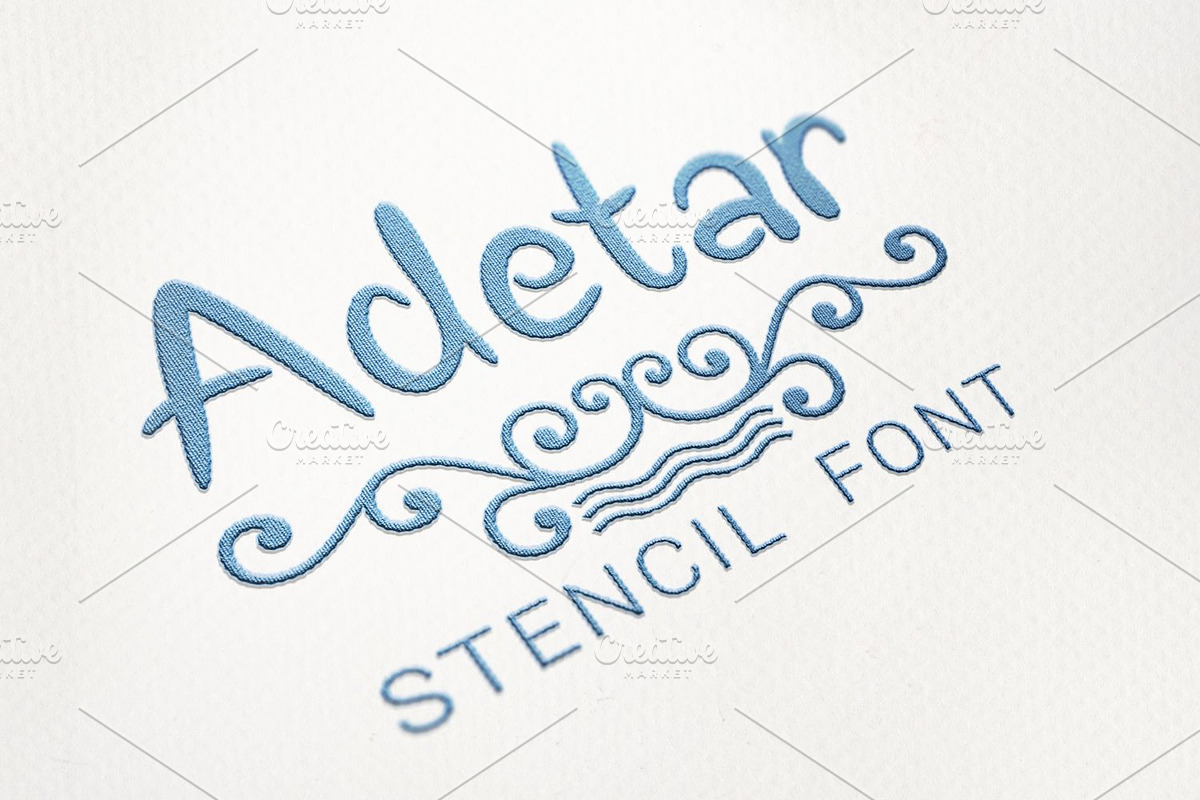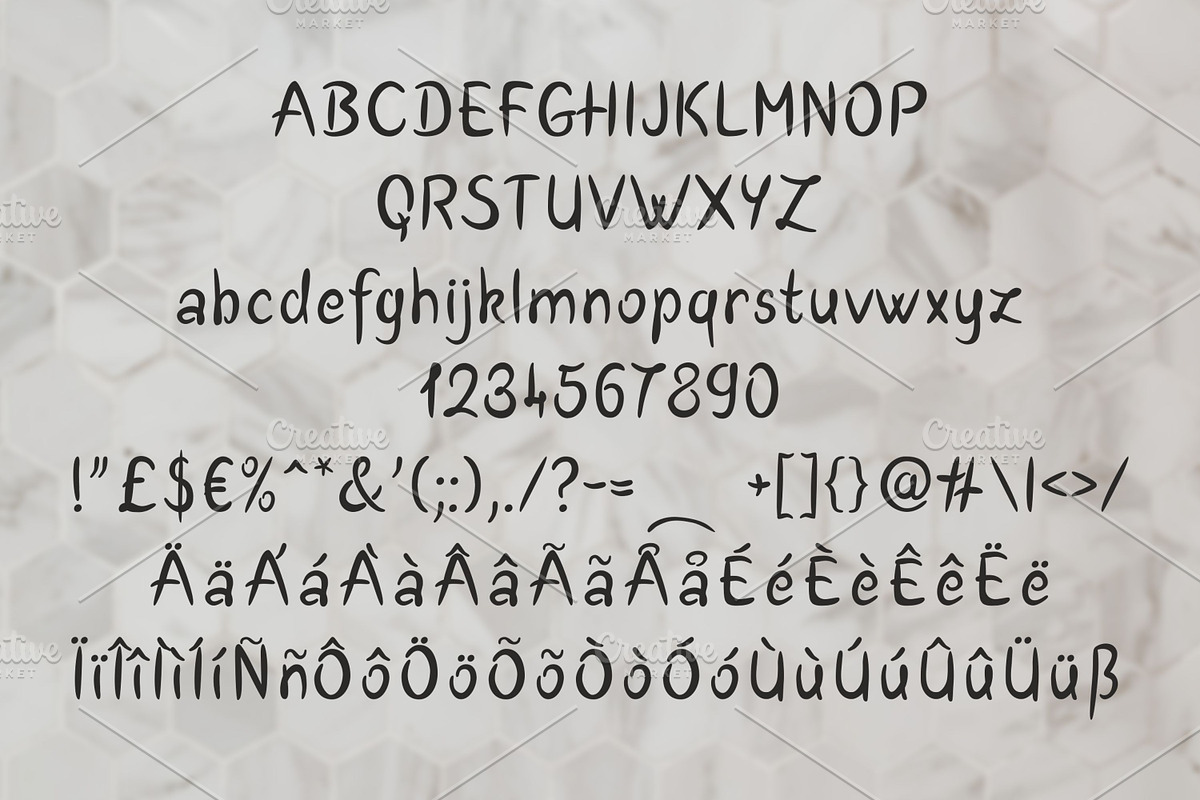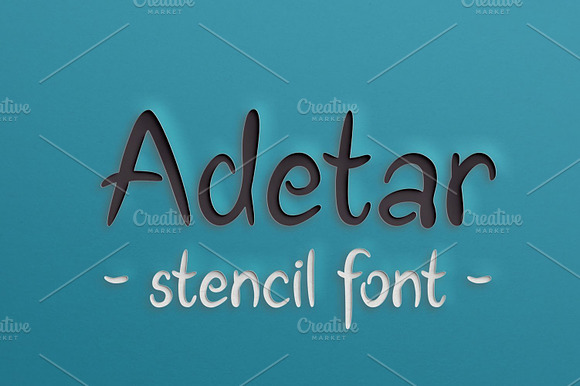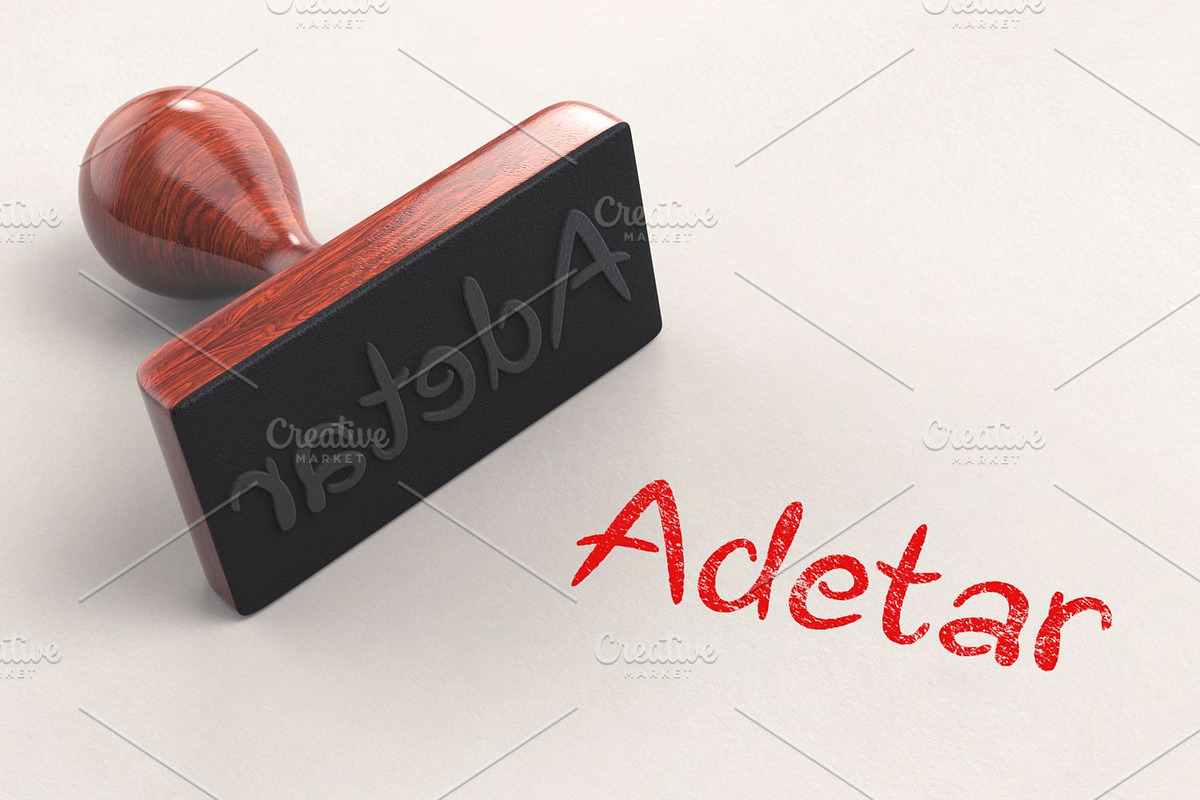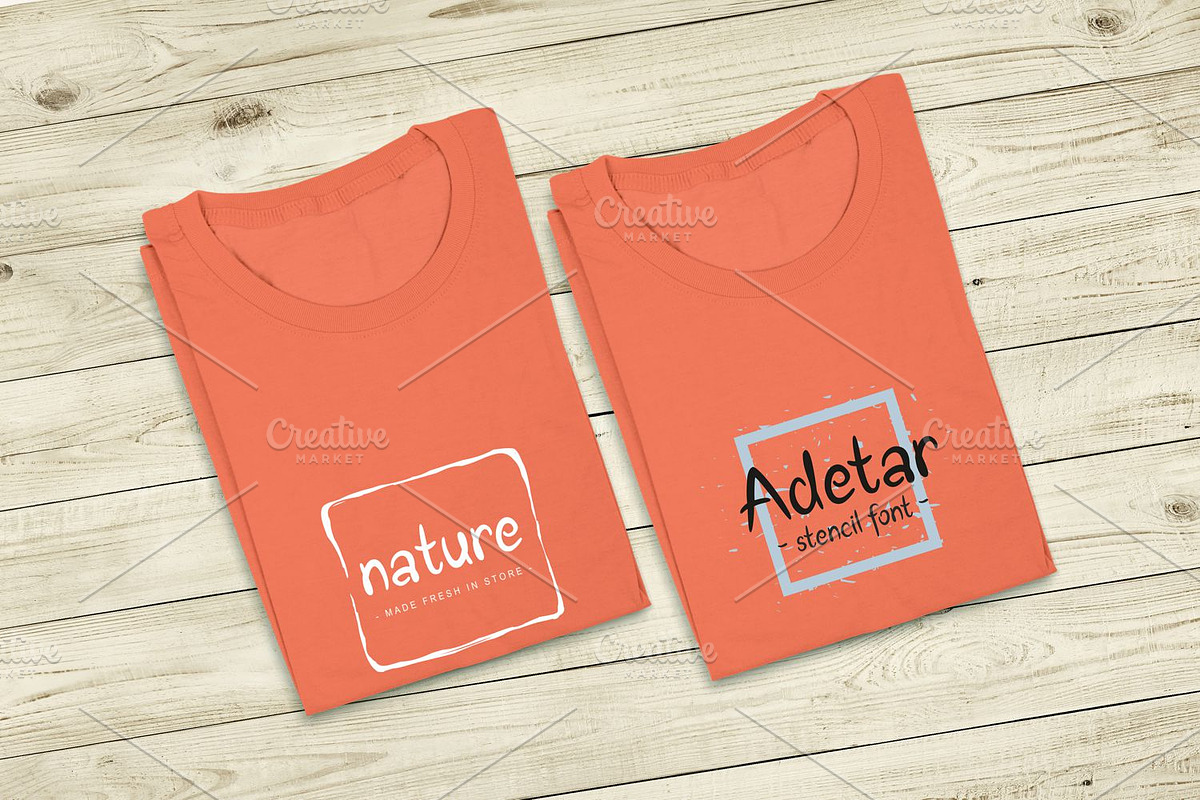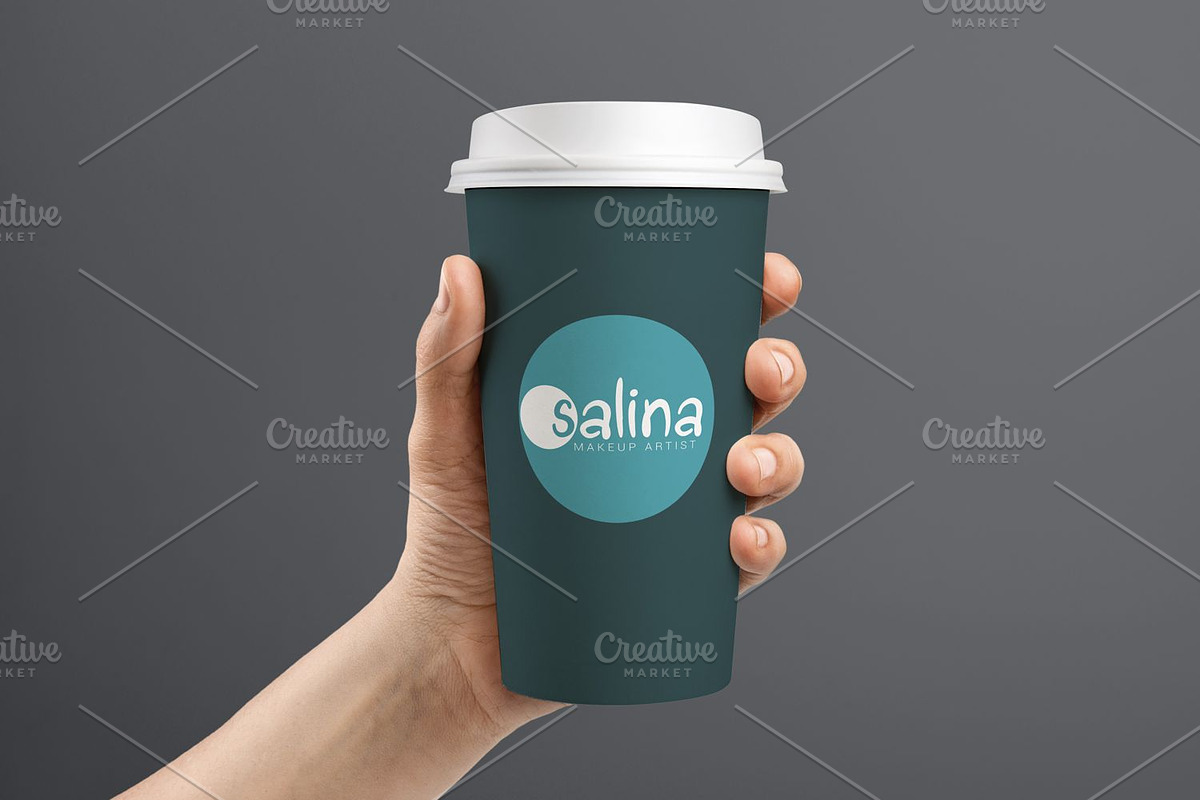
Adetar Stencil
Adetar Stencil font is a casual handwriting font without closed loops on the characters.
Adetar Stencil by Digital Typeface Studio fits naturally into Branding, posters, packaging, typography.